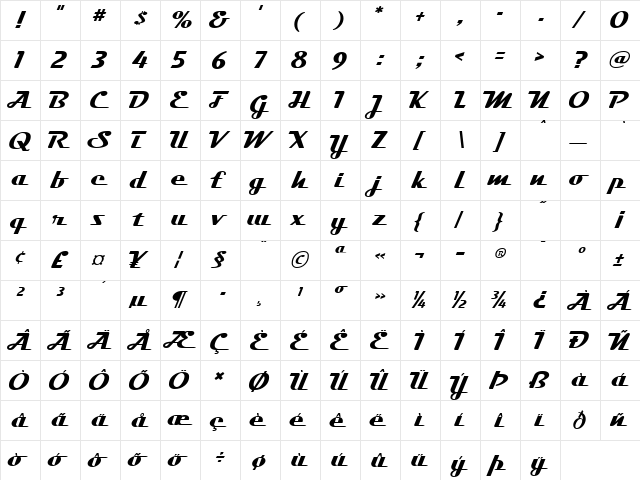
Fairlane Regular
Design Context for Fairlane Typeface
Fairlane offers clean, dependable letterforms without strong stylistic allegiance, making it a practical choice for designers who need flexibility.
Pro Tip: Use Fairlane in both headline and body roles to test its range before committing to a single application.